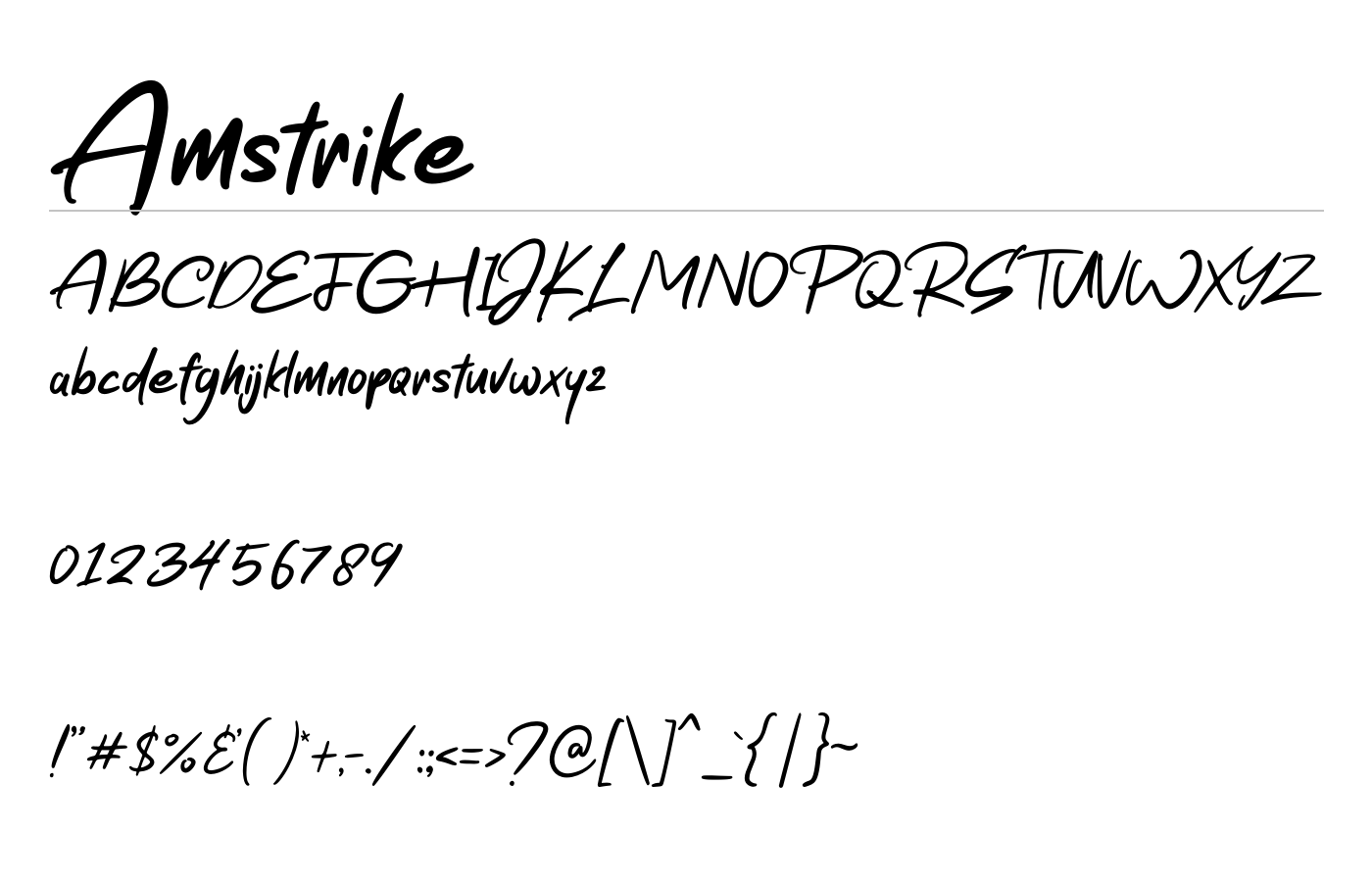
Amstrike is a lively, modern script font with a casual, handwritten feel that combines smooth, flowing strokes and dynamic letterforms. Its medium weight and slightly condensed width make it ideal for adding personality and warmth to branding, invitations, logos, and headlines while maintaining legibility and charm. This font works especially well in creative and informal designs that seek an approachable yet stylish touch.
Amstrike Font
About Amstrike Font